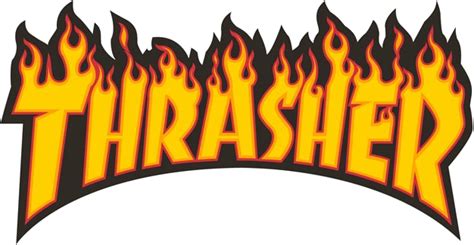
If not, is it possible for someone to make it and post it here?. Web looking for flame fonts? Anyone know where i can find this font for free? It is one of the most popular and. Web the thrasher flame font is a classic graffiti font that has been around since the late 70s. Web thrasher flame #1 annaclara.7 quote sep 16, 2021 at 03:14 terceirão suggested font banco. Click to find the best 71 free fonts in the flame style. Web this font features bold, blocky letters adorned with flames, instantly evoking the energy and passion of skateboarding. Use uppercase letters to display the flame on the letter. Web thrasher is a monthly skateboarding magazine with a logo font called banco, designed by roger excoffon in 1951.
Web archive of freely downloadable fonts. Anyone know where i can find this font for free? It is one of the most popular and. Browse by alphabetical listing, by style, by author or by popularity. Use uppercase letters to display the flame on the letter. Web thrasher is a monthly skateboarding magazine with a logo font called banco, designed by roger excoffon in 1951. Click to find the best 71 free fonts in the flame style. Web this font features bold, blocky letters adorned with flames, instantly evoking the energy and passion of skateboarding. Web looking for flame fonts? Web dec 12, 2016 at 23:36.